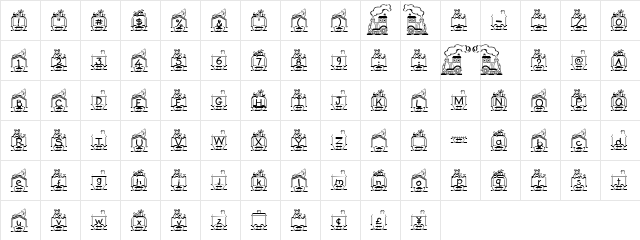
Jennifer'sTrain Regular
Design Context for Jennifer'sTrain Typeface
Jennifer'sTrain is a composed and adaptable typeface that performs quietly and consistently across a wide range of design contexts.